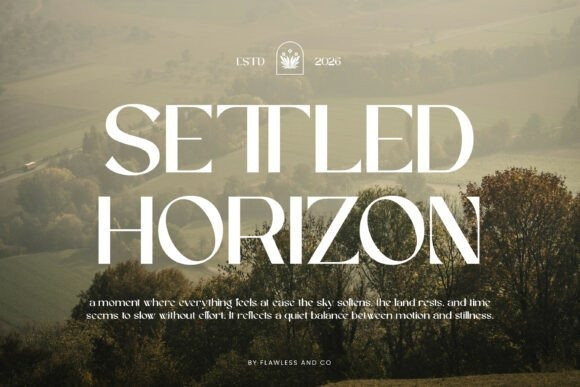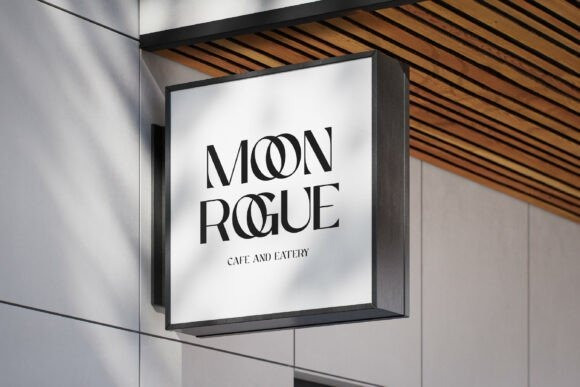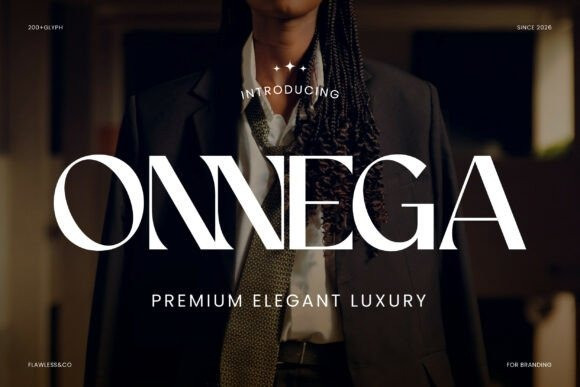
Onnega Font
Onnega Font is a premium luxury serif typeface crafted to embody elegance, prestige, and timeless sophistication. With its refined letterforms, high-contrast strokes, and graceful proportions, Onnega creates a striking visual presence that feels both classic and modern. Every detail is designed to convey exclusivity and high-end appeal, making it perfect for designs that demand a luxurious and polished identity. Whether for branding, editorial layouts, or premium packaging, Onnega delivers a truly upscale typographic experience.